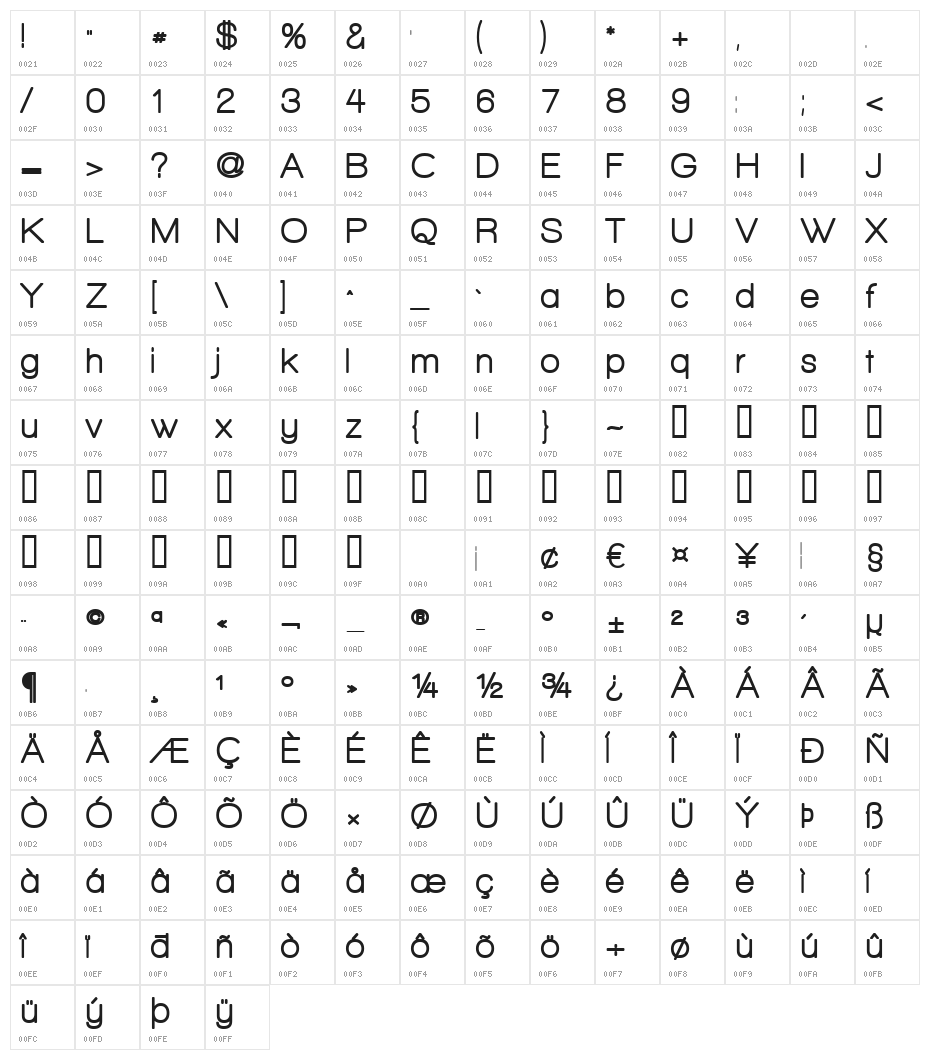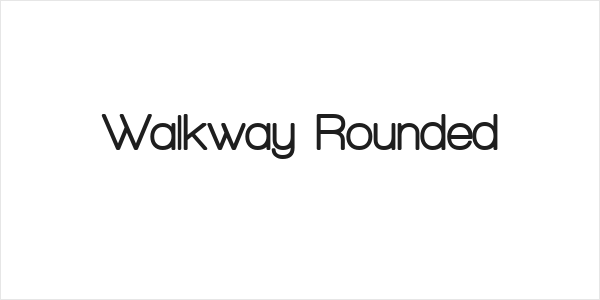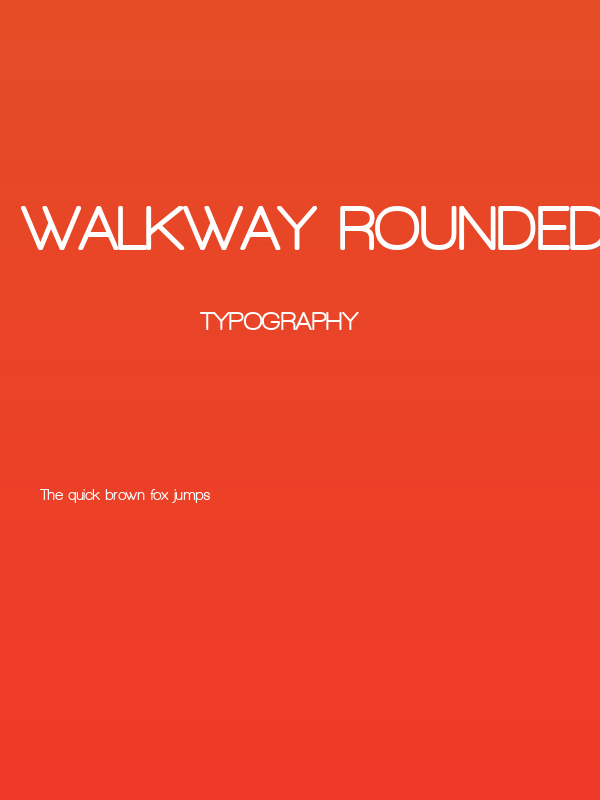
Walkway Rounded Font
| उपयोग का मामला | Headlines, Body text, Logos |
| सुझाए गए प्रोजेक्ट | Ideal for branding, signage, digital interfaces, and print materials where a friendly and modern look is desired. |